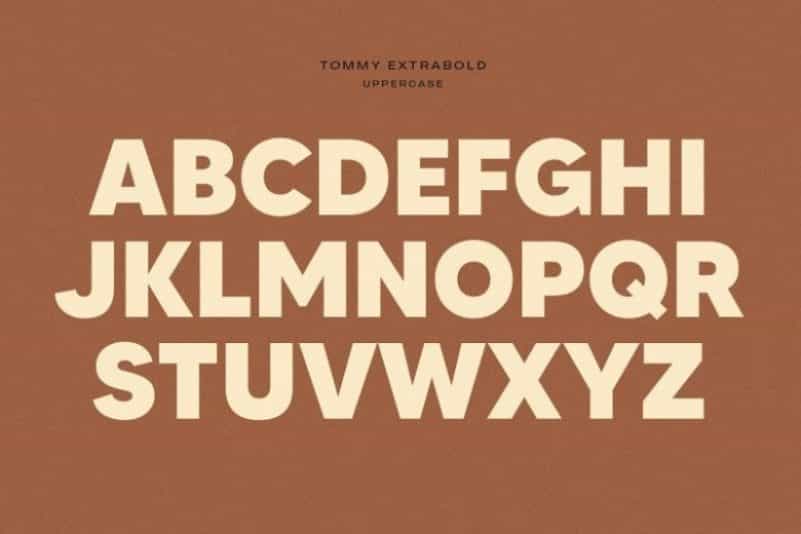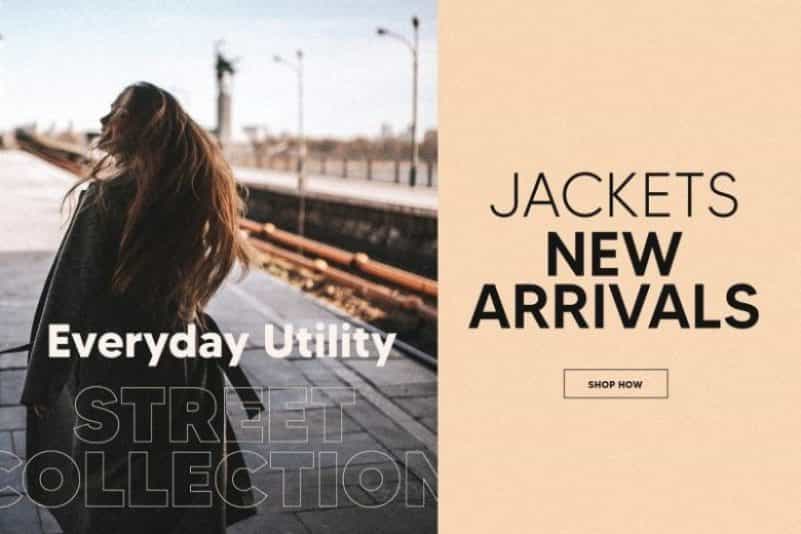
Tommy is a creative, versatile sans serif font family that comes in a pack of fourteen different weights. Tommy adds to uppercase, lowercase, punctuation and every standard special character that can be found on a keyboard. It is best for editorial projects, logotypes, posters, clean designs, logos and headlines among others.